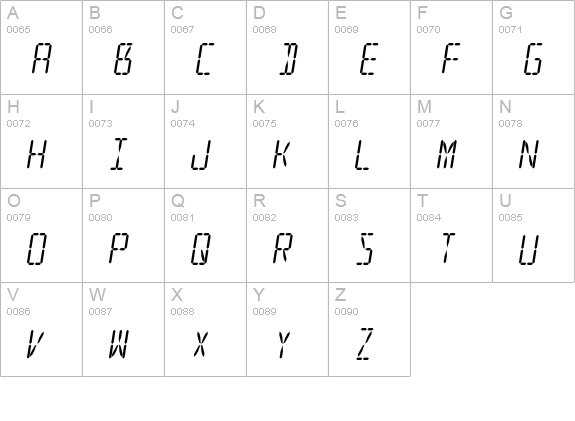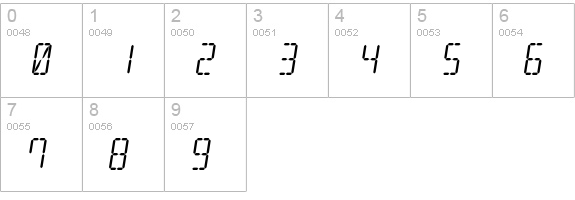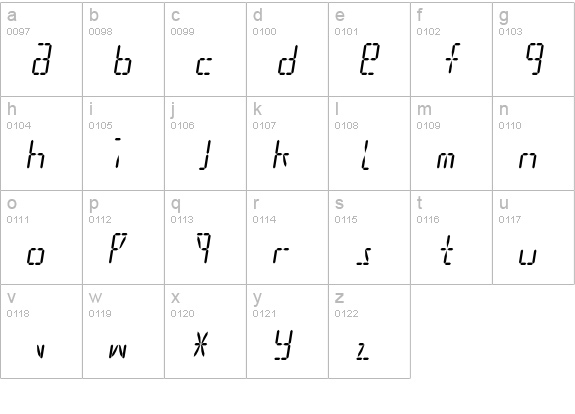
LED 16 Segment 2 Italic is a distinctive, italic variant in the LED typeface family \xE2\x80\x94 well suited to design and typography projects.
The LED 16 Segment 2 Italic font is a stylish and eye-catching typeface that combines the futuristic look of LED displays with a unique italicized design. This font features sharp and clean lines, giving it a modern and sophisticated appearance. With its 16-segment structure, this font is perfect for creating attention-grabbing headlines, banners, and signage. Its bold and italicized characters add a touch of elegance and uniqueness to any design project. What makes the LED 16 Segment 2 Italic font even more appealing is that it is freely available to download at FontsMarket.com. This means that designers and typographers can easily access this font without any cost, making it a great option for both personal and commercial use. Whether you are working on a digital project, a print design, or even a website, the LED 16 Segment 2 Italic font is sure to make a lasting impression. Its sleek and modern appearance will add a touch of sophistication to any project, making it stand out from the crowd. So, if you are looking for a font that combines the futuristic look of LED displays with an italicized twist, look no further than the LED 16 Segment 2 Italic font. Download it for free at FontsMarket.com and let your creativity shine.